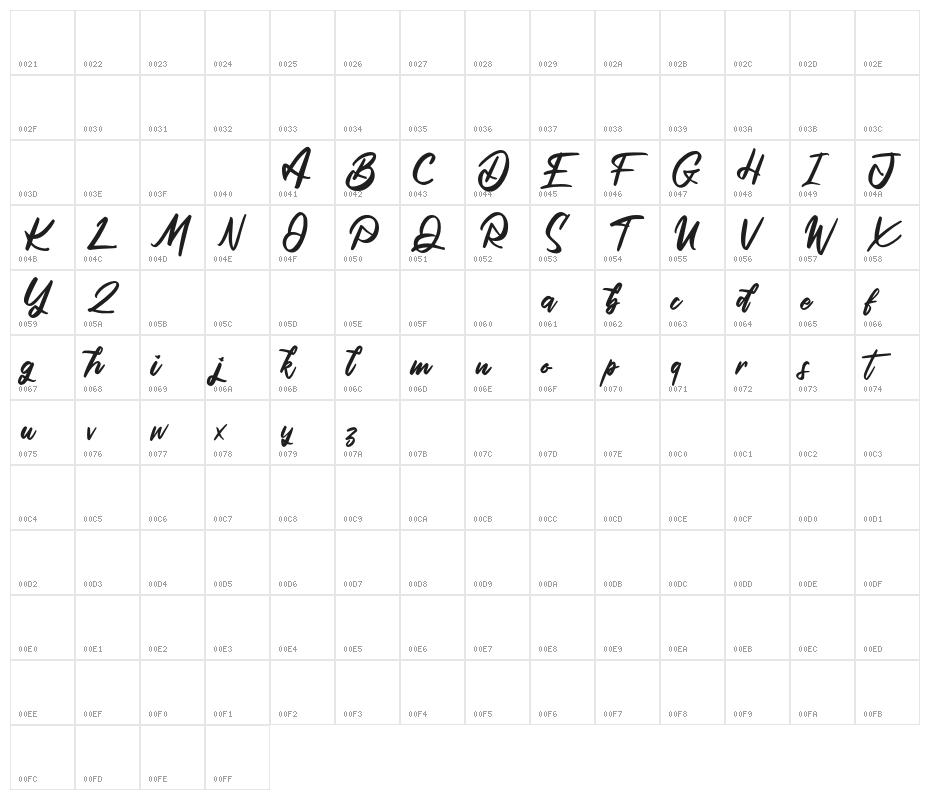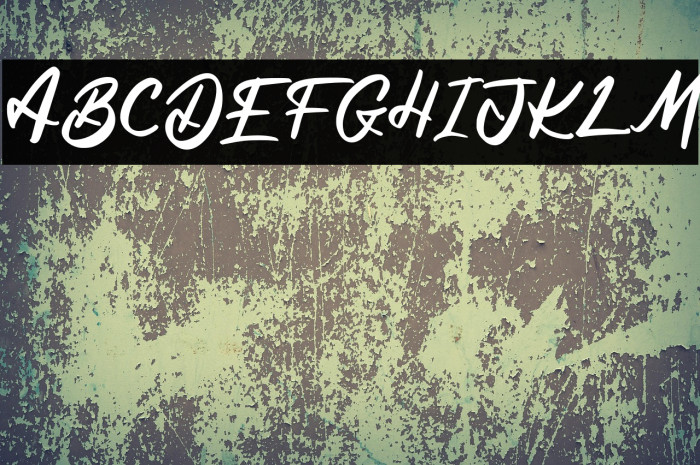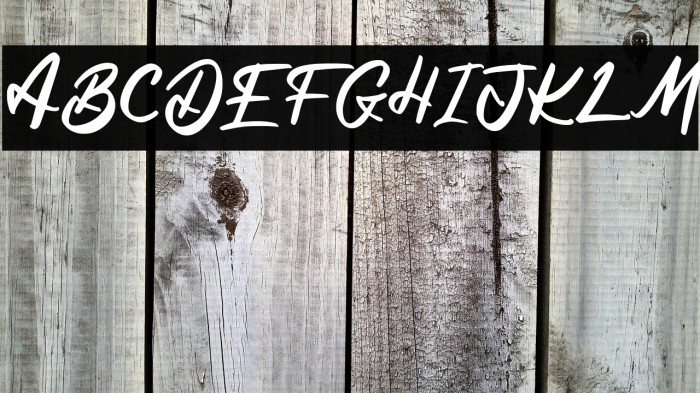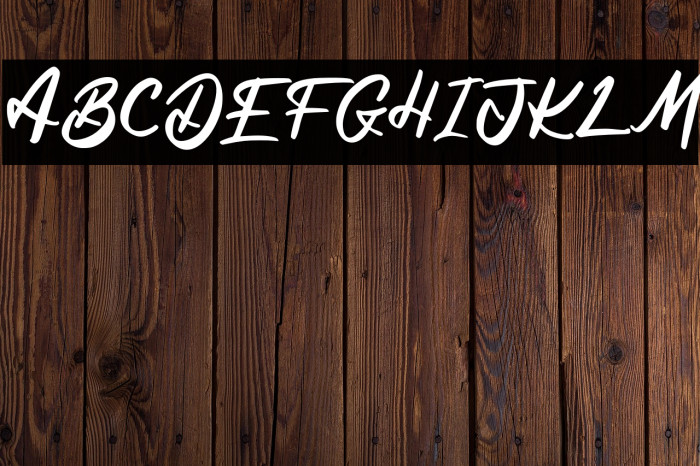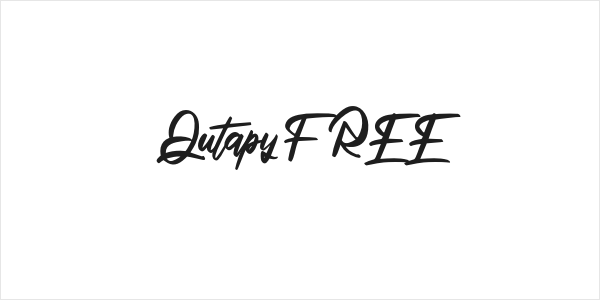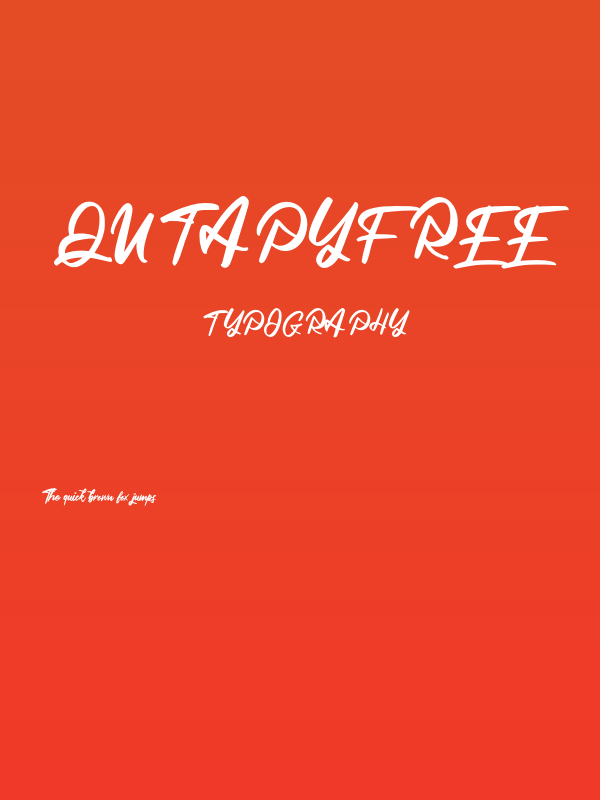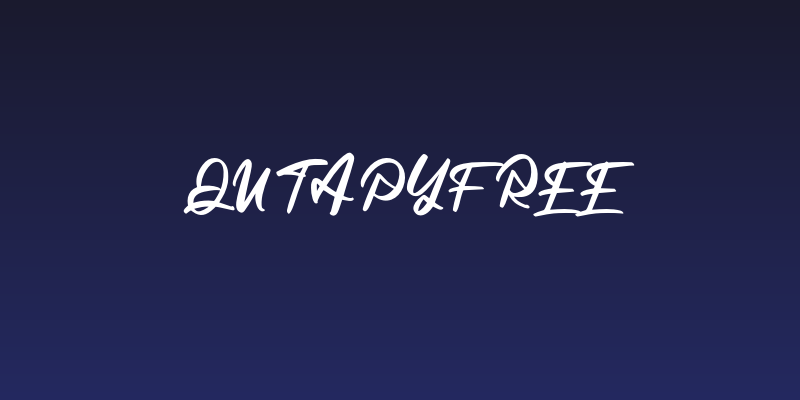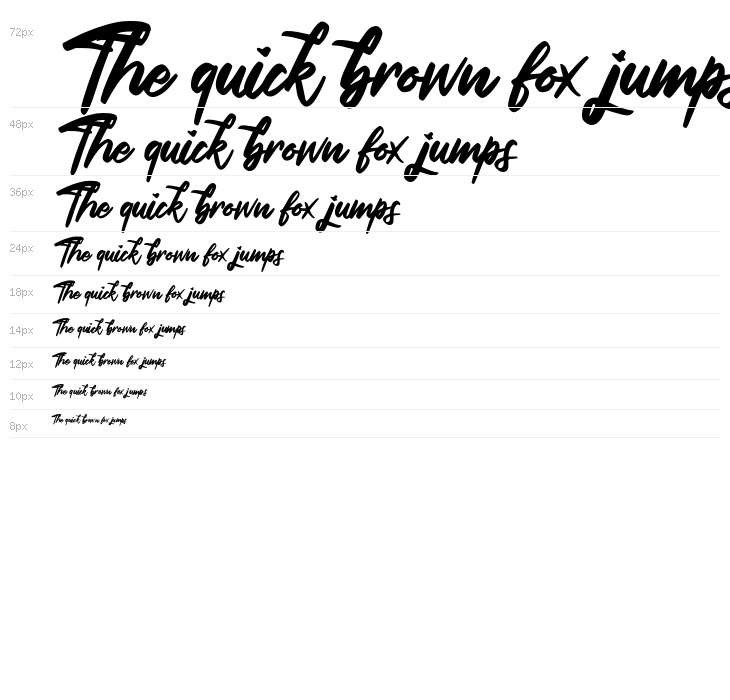
QutapyFREE Font
QutapyFREE Description
This font features a dynamic and expressive script style, characterized by its fluid and connected letterforms. The uppercase letters exhibit a bold and confident appearance, while the lowercase letters maintain a consistent flow, enhancing readability. The strokes are smooth and slightly varied in thickness, adding a touch of elegance and sophistication. The font's overall design is modern yet retains a classic script charm, making it versatile for various design applications. It includes a full set of uppercase and lowercase letters, numerals, and a selection of special characters, allowing for comprehensive usage in different contexts.